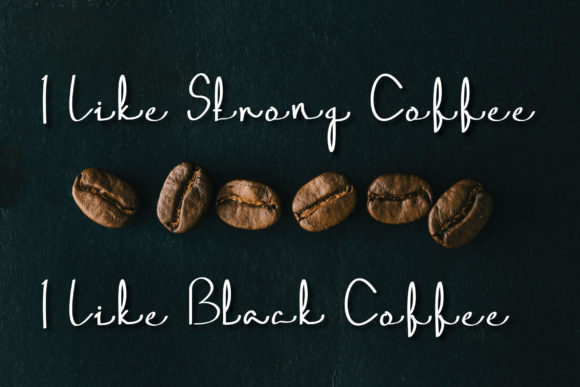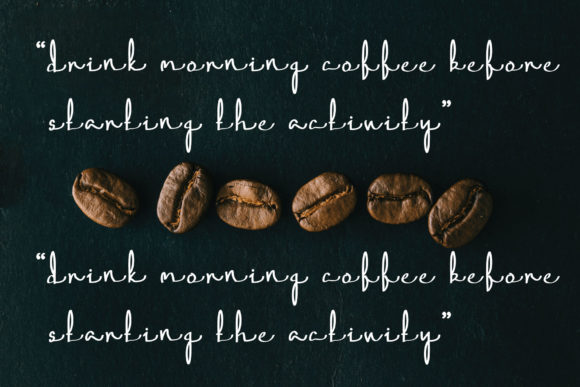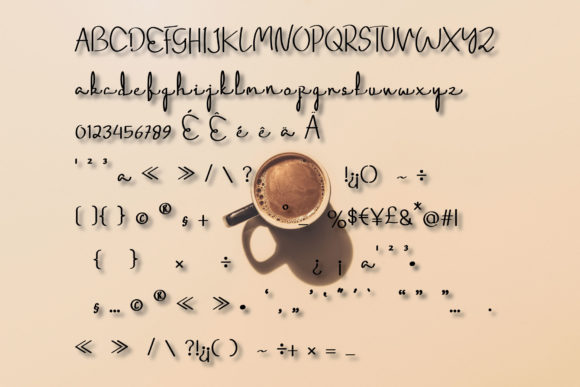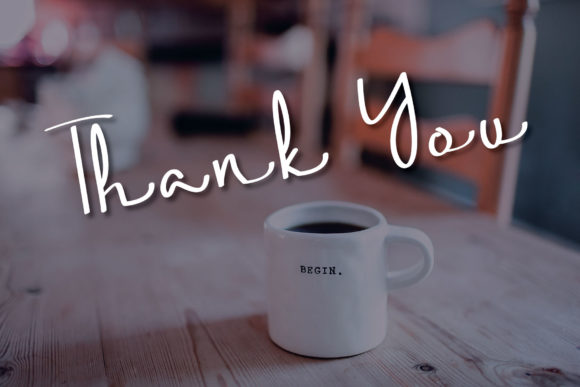
Coffee Font: The Perfect Addition to Your Design Toolbox
Coffee Font is a delightful handwritten font that has captured the hearts of designers and crafters alike. Its sweet and lively style makes it an excellent choice for adding a personal touch to your designs. In this article, we’ll dive into the world of Coffee Font, exploring its features, uses, and benefits.
A Brief Introduction to Coffee Font
Coffee Font is a carefully crafted handwritten font that exudes warmth and friendliness. Its unique character set and flowing script make it perfect for creating eye-catching designs that stand out from the crowd. Whether you’re working on a branding project, crafting a social media post, or designing a greeting card, Coffee Font is sure to add a touch of personality to your work.
What Makes Coffee Font So Special?
Coffee Font’s sweet and full-of-life style is what sets it apart from other fonts. Its handwritten nature gives it a personal and approachable feel, making it perfect for designs that require a human touch. The font’s flowing script and curly letters add a playful and whimsical touch, making it ideal for designs that need to be fun and engaging.
Features of Coffee Font
- Handwritten script: Coffee Font features a beautiful handwritten script that adds a personal touch to your designs.
- Unique character set: The font includes a unique character set, complete with curly letters, swashes, and ligatures.
- Full of life: Coffee Font’s lively style makes it perfect for designs that require energy and enthusiasm.
- Easy to read: Despite its playful nature, Coffee Font is easy to read, making it suitable for body text and headlines.
Uses of Coffee Font
Coffee Font is a versatile font that can be used in a variety of design projects, including:
- Branding: Use Coffee Font to create unique and memorable brand identities that stand out from the competition.
- Social media: Add a personal touch to your social media posts and stories with Coffee Font’s playful script.
- Greeting cards: Create beautiful and heartfelt greeting cards with Coffee Font’s whimsical style.
- Packaging: Use Coffee Font to add a touch of personality to your product packaging and make it stand out on store shelves.
Benefits of Using Coffee Font
There are many benefits to using Coffee Font in your designs, including:
- Adds personality: Coffee Font adds a personal touch to your designs, making them more relatable and engaging.
- Stand out from the crowd: Coffee Font’s unique style helps your designs stand out from the competition.
- Versatile: Coffee Font can be used in a variety of design projects, from branding to packaging.
Tips for Using Coffee Font
Here are a few tips for using Coffee Font in your designs:
- Use it sparingly: Coffee Font is a bold font, so use it sparingly to avoid overwhelming your design.
- Pair it with other fonts: Pair Coffee Font with other fonts to create a unique and interesting contrast.
- Experiment with colors: Coffee Font looks great in a variety of colors, so experiment with different hues to find the perfect one for your design.
Coffee Font is a delightful handwritten font that adds a personal touch to any design project. Its sweet and lively style makes it perfect for brightening up your designs and making them stand out from the crowd. With its unique character set, easy-to-read script, and versatility, Coffee Font is a great addition to any design toolbox.